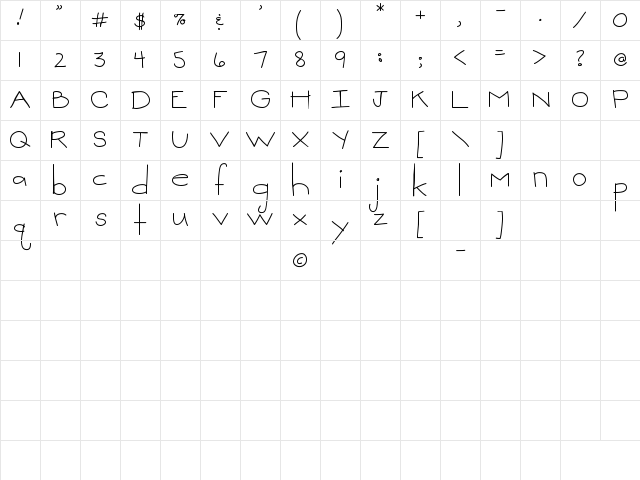
MTF Sweetie Regular
Designer: Tina Raparanta a.k.a. MissTiina
Design Context for MTF Sweetie
MTF Sweetie is a composed and adaptable typeface that performs quietly and consistently across a wide range of design contexts.
Pro Tip: Use MTF Sweetie in both headline and body roles to test its range before committing to a single application.